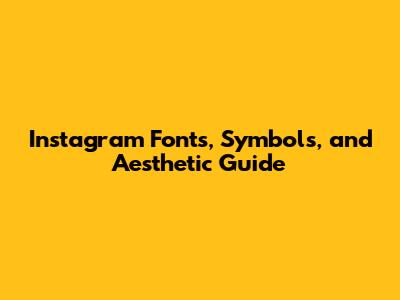
Instagram Fonts, Symbols, And Aesthetic Guide
Hey everyone! ๐Ÿ‘‹ Ever scrolled through Instagram and been totally captivated by those cool fonts, unique symbols, and overall aesthetic vibes? You're not alone! Instagram is a visual playground, and knowing how to jazz up your profile with stylish fonts and creative symbols is a total game-changer. This guide is your ultimate cheat sheet to mastering Instagram fonts, symbols, and that enviable aesthetic that will make your profile pop. We'll dive into the world of cool fonts, uncover where to find those awesome symbols, and explore how to blend them all together for a truly Instagrammable feed. So, buckle up, because we're about to transform your Instagram game from basic to banging! ๐Ÿ˜Ž
The Power of Instagram Fonts and Why They Matter
Let's be real, guys, your font choices on Instagram can make or break your profile's first impression. Instagram fonts are more than just text; they're a statement. They communicate your brand, personality, and style in a split second. A carefully chosen font can stop the scroll, grab attention, and encourage people to stick around and see what you're all about. Think of it like this: your font is the voice of your visual content. Is it playful and quirky? Elegant and sophisticated? Bold and edgy? The right font instantly tells your audience what they can expect from your content. Plus, using unique Instagram fonts helps you stand out from the crowd. In a sea of generic posts, a custom font immediately sets you apart, making your content more memorable and shareable. Itโ€™s like having a secret weapon in the Instagram world! Choosing the right font is about more than just aesthetics; it's about conveying your message effectively. For example, if you're a fashion blogger, a sleek, modern font might be perfect. If youโ€™re a travel enthusiast, a handwritten or script font could evoke a sense of adventure and wanderlust. Understanding your brand and target audience is key. Consider what kind of feeling you want to create and choose a font that aligns with that vision. Consistency is another critical aspect. Once you've chosen your fonts, stick with them! This consistency helps build brand recognition, making it easier for people to identify your content at a glance. It's all about creating a cohesive visual identity that truly reflects your personal or business brand. Experimenting with different font combinations can also add visual interest. Try pairing a bold headline font with a more readable body font. Just make sure the fonts complement each other and don't clash, as this will only confuse your audience. Using different fonts can also help with readability, ensuring your message is clear and easy to understand. So, mastering Instagram fonts is essential for boosting your profile's appeal. It enhances your visual identity, keeps your audience engaged, and boosts your brand recognition. It helps communicate your unique brand voice effectively. By thoughtfully using fonts, you can make your profile way more awesome.
Where to Find Cool Fonts for Instagram
Alright, so you're itching to get your hands on some fresh fonts, right? Luckily, finding cool Instagram fonts is easier than ever. There are tons of online tools and apps dedicated to helping you create unique text for your Instagram posts, stories, and bios. These tools usually work by converting your regular text into a stylish version that you can then copy and paste into Instagram. Here are a few of the best places to find them:
• Instagram Font Generators: These are your go-to resources! Websites like LingoJam, Cool Symbols, and Instagram Fonts Generator offer a variety of font styles, from elegant scripts to bold, decorative fonts. Just type in your text, and the tool generates various font options for you to choose from. Copy the one you like and paste it into your Instagram bio, captions, or stories. Easy peasy! ๐Ÿ‘
• Font Apps: Some apps are specifically designed for creating stylish text on your phone. Apps like Stylish Text, Fonts Keyboard, and Fontify let you type directly in the app and preview different font styles. You can then copy and paste the text into Instagram. Many of these apps also offer symbol and emoji integration, giving you even more creative options.
• Canva: Yes, Canva! The popular design platform is not just for creating graphics. It also offers a huge library of fonts that you can use for your Instagram content. Create your posts, stories, or templates with Canva's built-in text tools, which provide loads of font choices, plus the ability to customize your text with colors, sizes, and effects. This is a great choice if you want to create visually stunning posts.
When exploring these options, remember to keep a few things in mind. Make sure the fonts you choose are readable, as the goal is to communicate clearly. Also, consider the overall aesthetic of your brand. Does the font fit with your images and personality? Finally, make sure the font looks good on both desktop and mobile, so it will display properly. With these resources, you'll be able to quickly find the perfect Instagram fonts to take your profile to the next level!
Unleashing the Magic of Instagram Symbols
Instagram symbols are those tiny, often overlooked gems that can seriously enhance your content. Theyโ€™re like sprinkles on a cupcake; they add a touch of personality, visual interest, and flair to your captions, bios, and stories. The best part? They're super easy to use, and they can make a massive difference in how your content is perceived. They are amazing, right? Let's dive in. โœจ
Using Instagram symbols effectively is all about knowing where to find them and how to incorporate them into your content. They can be used to break up text, emphasize important points, add visual cues, and even communicate emotions or actions. For instance, using an arrow โžก๏ธ can guide your audience's attention, while a heart โค๏ธ can show your love for a post. Emojis are also symbols, and are a great way to add an extra layer of meaning and emotion to your captions. They are perfect for injecting personality into your content. You can use a smiling face ๐Ÿ˜Š to convey happiness, a thinking face ๐Ÿค” to spark curiosity, or a fire ๐Ÿ”ฅ to highlight something exciting.
Consider how to use symbols to create a cohesive theme for your profile. If you're a food blogger, you could use food-related symbols like a fork ๐Ÿด, knife ๐Ÿ”ช, and plate ๐Ÿฝ๏ธ to emphasize certain posts. If you are into fitness, you could use symbols like weights ๐Ÿ‹๏ธโ€โ™€๏ธ, muscles ๐Ÿ’ช, or a running man ๐Ÿƒ. The possibilities are endless!
Where to Find Cool Symbols for Instagram
Alright, letโ€™s get you hooked up with some cool symbols! The good news is, there are a bunch of places where you can find these visual goodies. The even better news? Most of these tools are free and super user-friendly. Ready, set, let's explore:
• Unicode Symbols: Your computer and phone already have a massive library of symbols, thanks to the Unicode standard. Just open your character map (on Windows) or character viewer (on Mac) to browse through thousands of symbols, from math symbols and currency symbols to arrows, stars, and dingbats. Copy and paste the symbols directly into your Instagram content. So convenient, right?
Conclusion: Elevate Your Instagram Game!
There you have it, guys! This guide covers everything you need to know about Instagram fonts, symbols, and creating a killer aesthetic. Remember, building an eye-catching Instagram profile is an ongoing process. Be patient, experiment, and don't be afraid to try new things. Keep your eye on whatโ€™s trending, and always stay true to your brand. With the right fonts, creative use of symbols, and a well-planned aesthetic, you can transform your Instagram into a visually stunning and engaging space. Now go out there and create something amazing! ๐Ÿš€